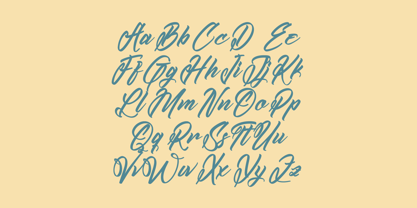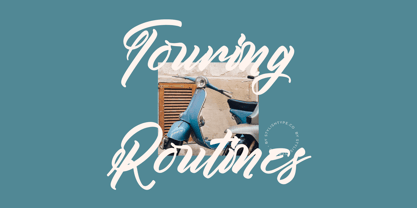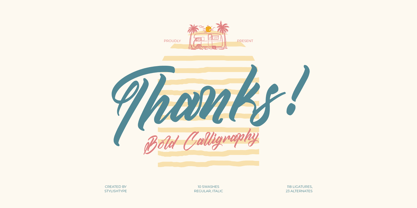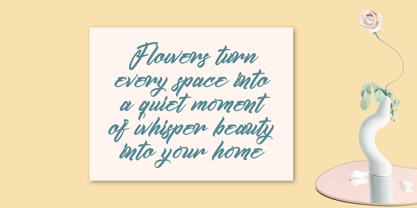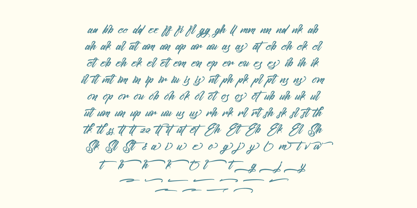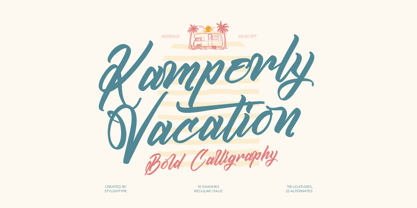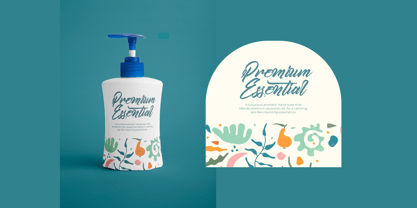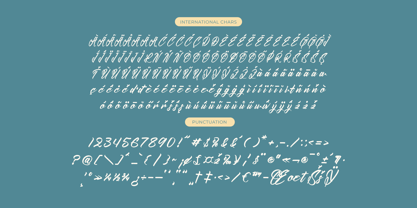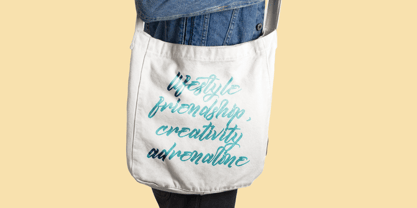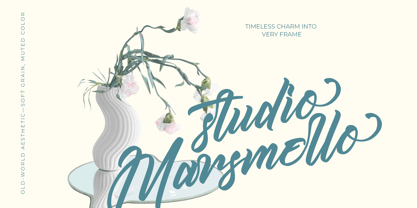
Kamperly Vacation
The Kamperly Vacation Font Family was designed by Heru Utama Putra and published by Stylishtype Studio. Kamperly Vacation contains 2 styles and family package options. More about this family
Kamperly Vacation is a bold calligraphy script font with energetic strokes, smooth curves, and a relaxed handwritten flow inspired by summer travel, adventure, and beach-life vibes. The font blends casual brush movement with expressive swashes, making it perfect for vacation-themed branding, travel posters, product packaging, social media quotes, apparel design, and sunny lifestyle projects. Its warm, friendly, and carefree personality brings a joyful mood to any creative work.